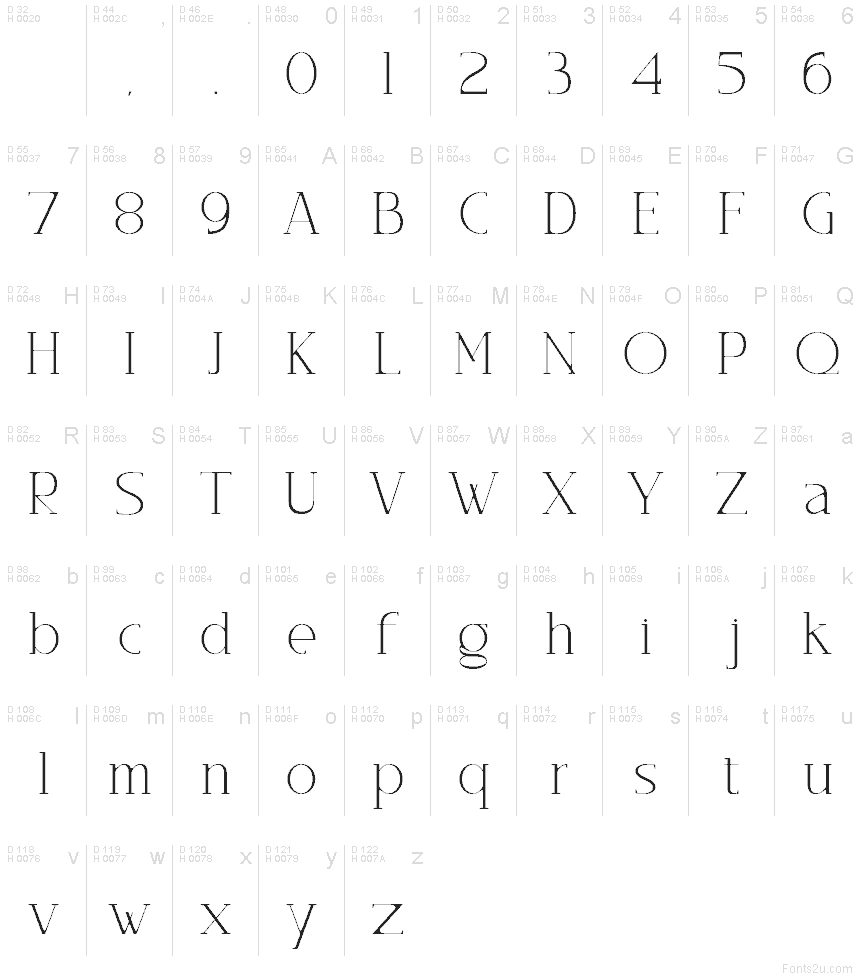
Gementine Regular
Gementine font by Muksal Creative is an elegant light serif that captures sophistication with every curve. Its refined and classic appearance shines in the detailed and consistent strokes allowing it to easily stand out within any design. Furthermore, the font characters benefit from reading clarity which ties well with their balanced elevated style.
With both digital designs and print ones, Gementine finds its true purpose as a branding font for packaging designs, identity presentations, headings and subheadings, logotypes for cosmetic products or jewelry lines, invitations, posters, etc. Use this free sophisticated font to realize all your personal or commercial ideas!